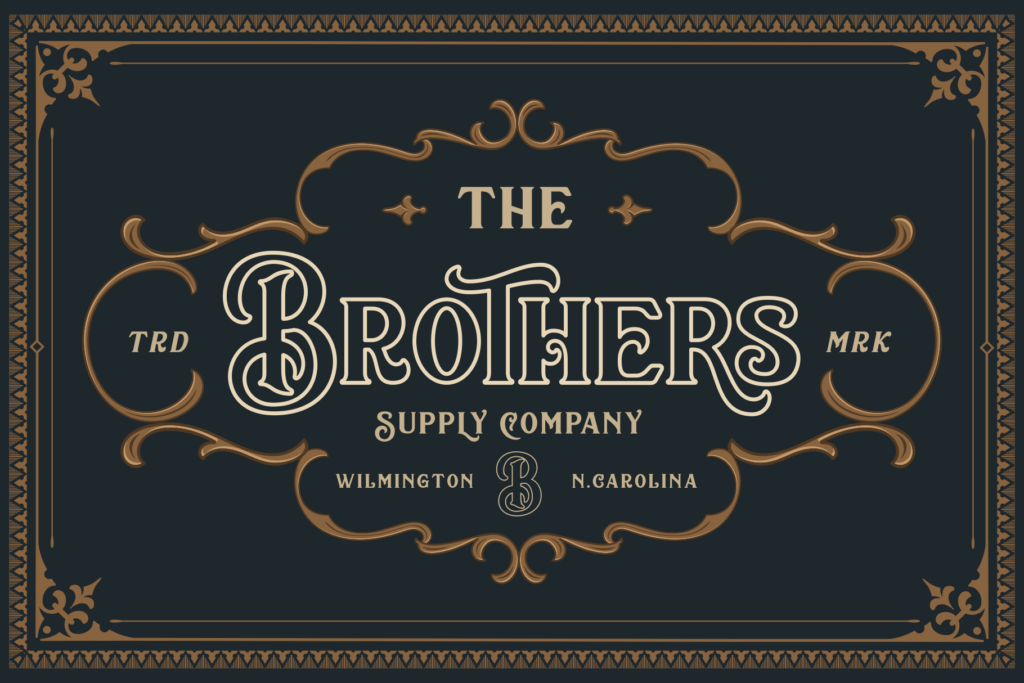
Sacred Bridge Family Font: Elevate Your Designs with a Timeless and Versatile Typeface
In the world of typography, few font families have managed to capture the essence of both classic elegance and modern sophistication as effectively as the Sacred Bridge Family Font. This remarkable typeface has been designed to transcend time, offering a unique blend of old-world charm and contemporary flair that makes it an indispensable asset for designers across various creative disciplines. Whether you’re working on a project that calls for an antique or traditional aesthetic, or you’re aiming to infuse a modern design with a hint of nostalgia, Sacred Bridge is the perfect choice.
Key Features of Sacred Bridge Family Font
- Old Fashioned yet Stunning: Sacred Bridge boasts a classic design that evokes a sense of nostalgia and timelessness, making it ideal for projects that require an element of tradition or vintage appeal.
- Versatility: Despite its old-fashioned roots, this font family is surprisingly versatile, seamlessly adapting to modern design concepts and adding a unique twist to your creative work.
- Comprehensive Extras: What sets Sacred Bridge apart is the inclusion of added extras, designed to give your projects a complete and fully realized look. This thoughtful addition saves designers time and effort, allowing for a more streamlined creative process.
Ideal Applications for Sacred Bridge Family Font
The versatility of Sacred Bridge makes it suitable for a wide range of design applications. Here are some of the areas where this font family truly shines:
- Antique and Traditional Designs: For projects that aim to evoke a sense of history or tradition, Sacred Bridge’s classic lines and elegant curves make it a perfect fit.
- Modern Designs with a Twist: Designers looking to add a touch of vintage charm to modern projects will find Sacred Bridge to be an invaluable resource.
- Branding and Logo Design: The distinctive character of Sacred Bridge makes it an excellent choice for brands seeking to establish a strong, memorable identity.
- Packaging and Advertising: Whether you’re working on product packaging or advertising materials, Sacred Bridge can add a level of sophistication and appeal that sets your work apart.
Typography Tips for Using Sacred Bridge Family Font
To make the most of Sacred Bridge, consider the following typography tips:
- Pairing: Experiment with pairing Sacred Bridge with other fonts to create interesting contrasts and hierarchies within your design.
- Spacing: Pay attention to letter spacing and line height to ensure that your text is readable and visually appealing.
- Color: Choose colors that complement the classic feel of Sacred Bridge, such as earth tones, rich blacks, or elegant metallics.